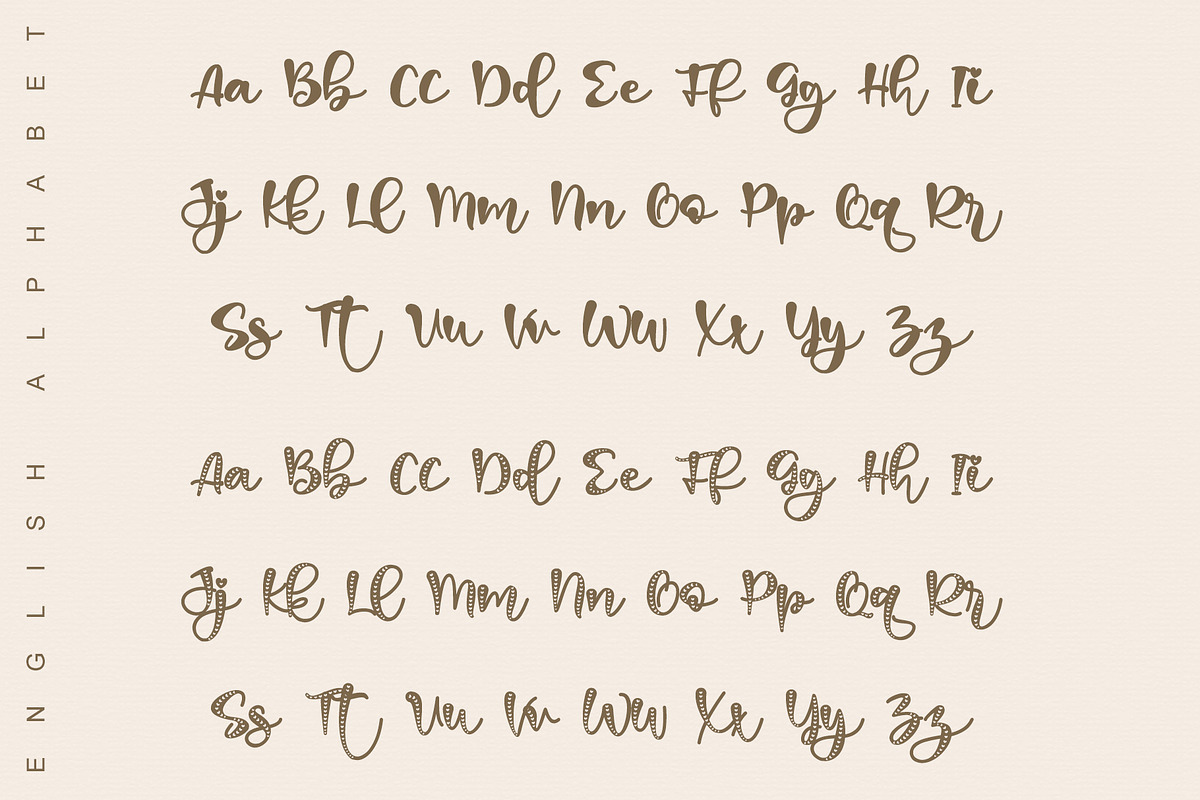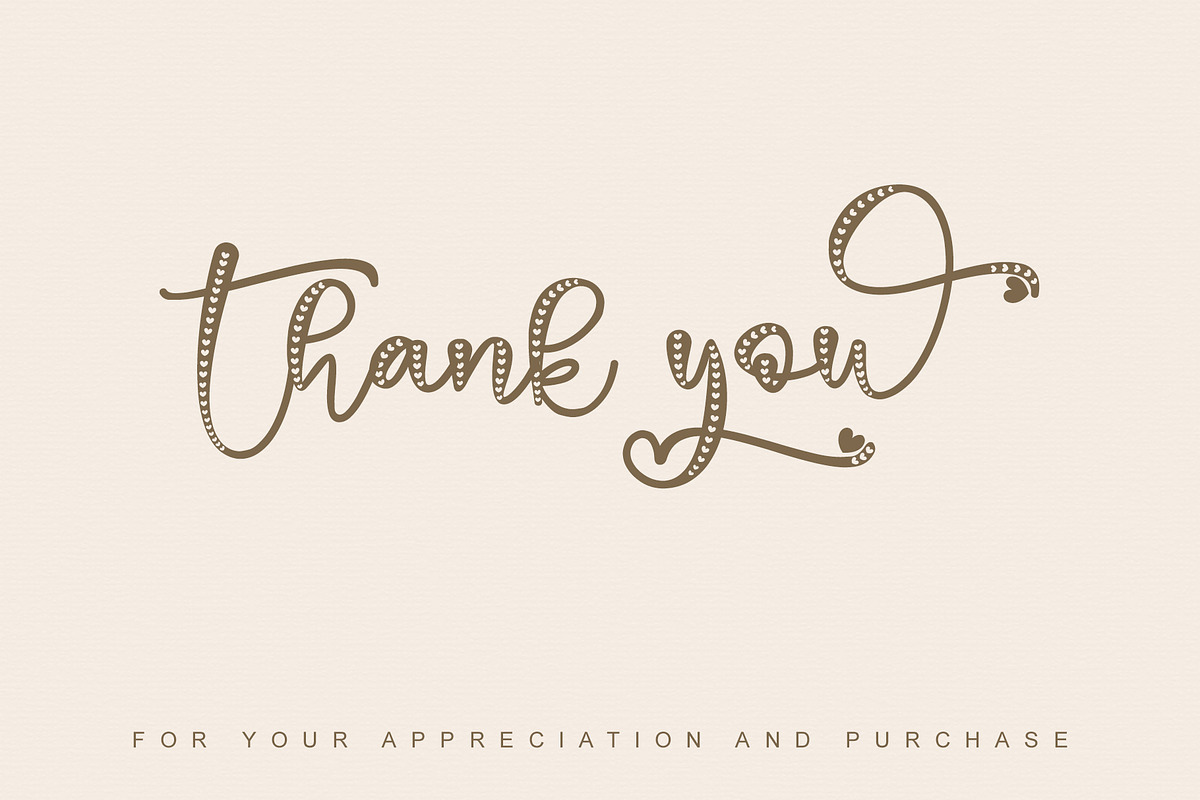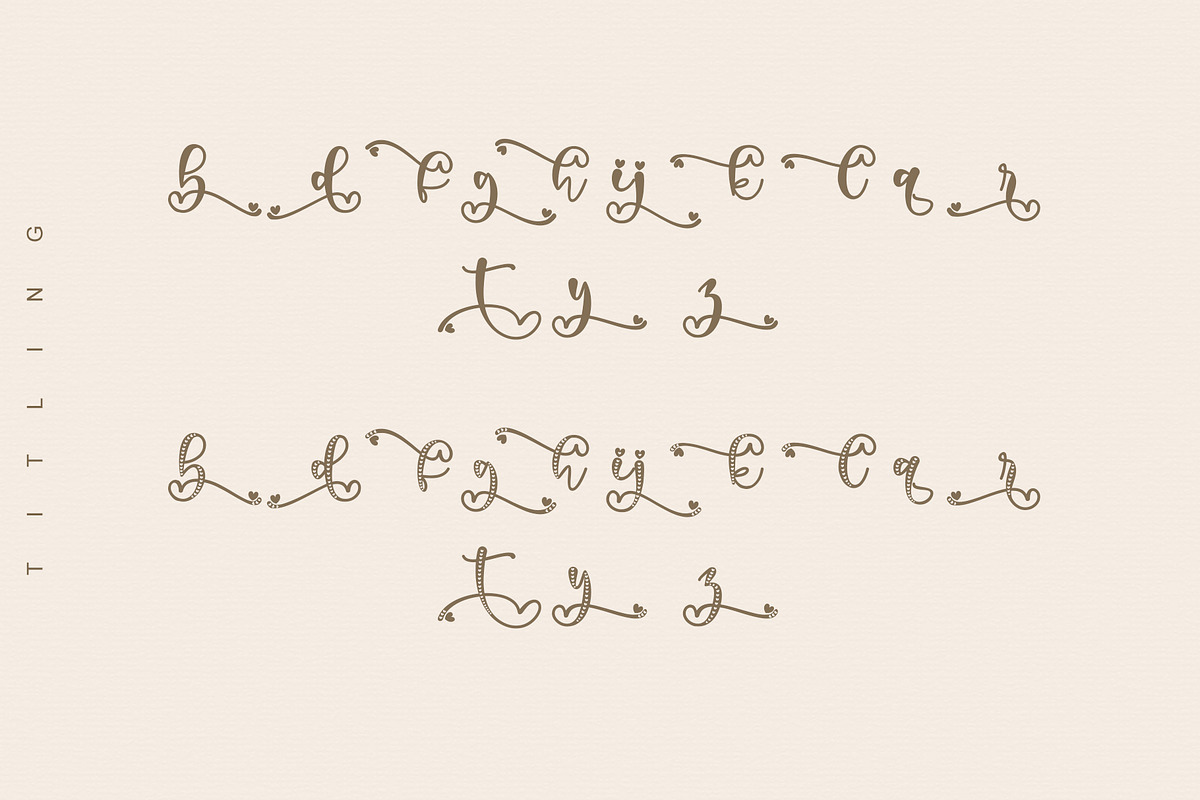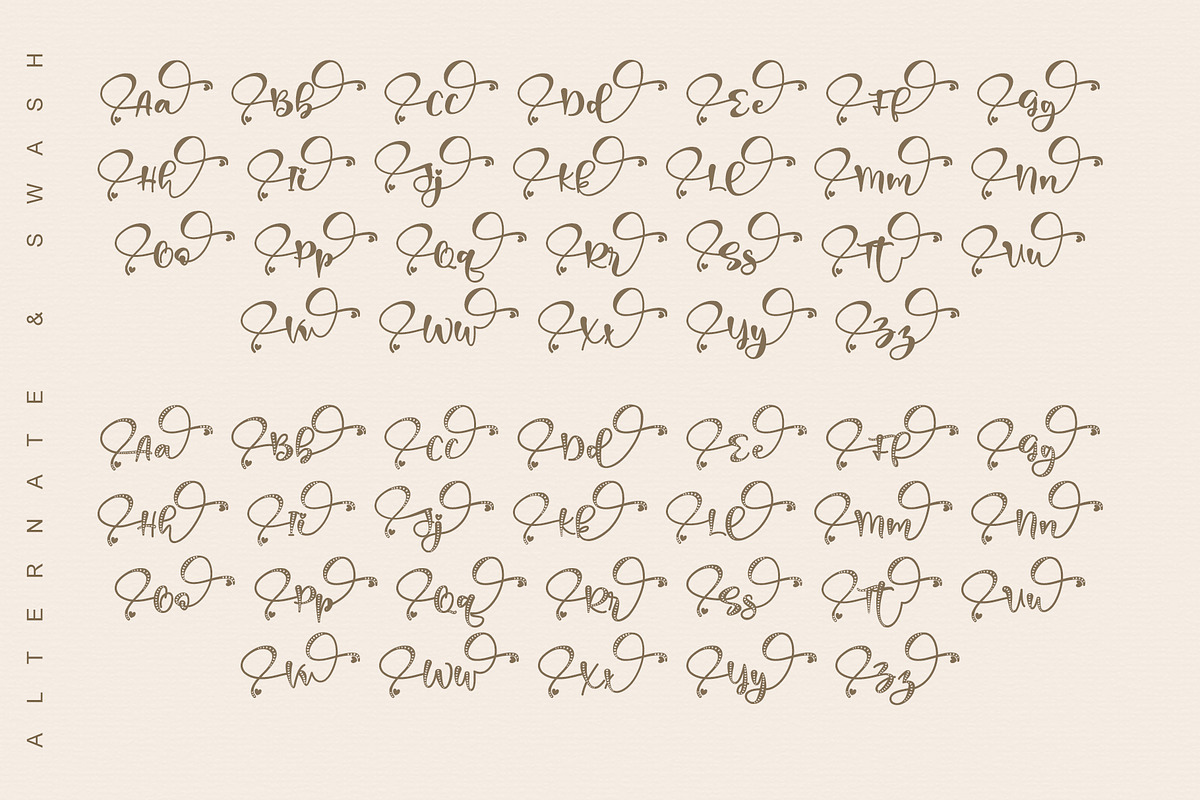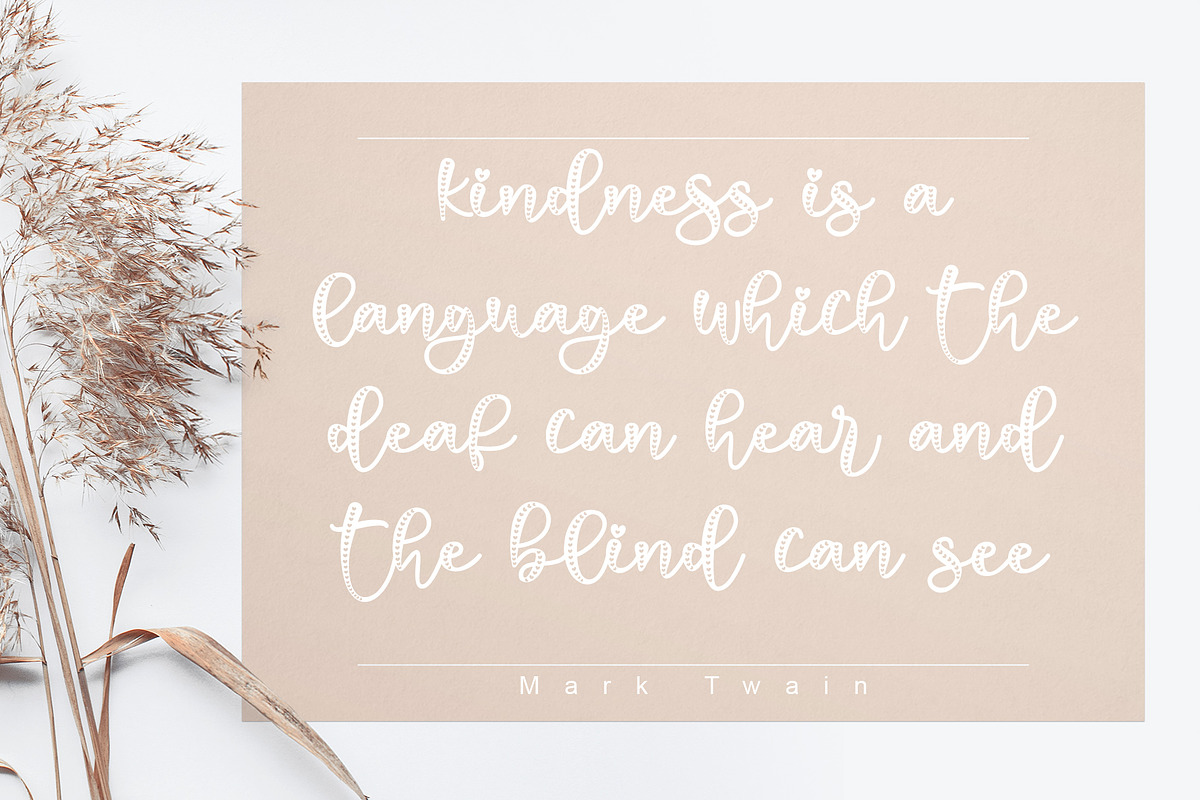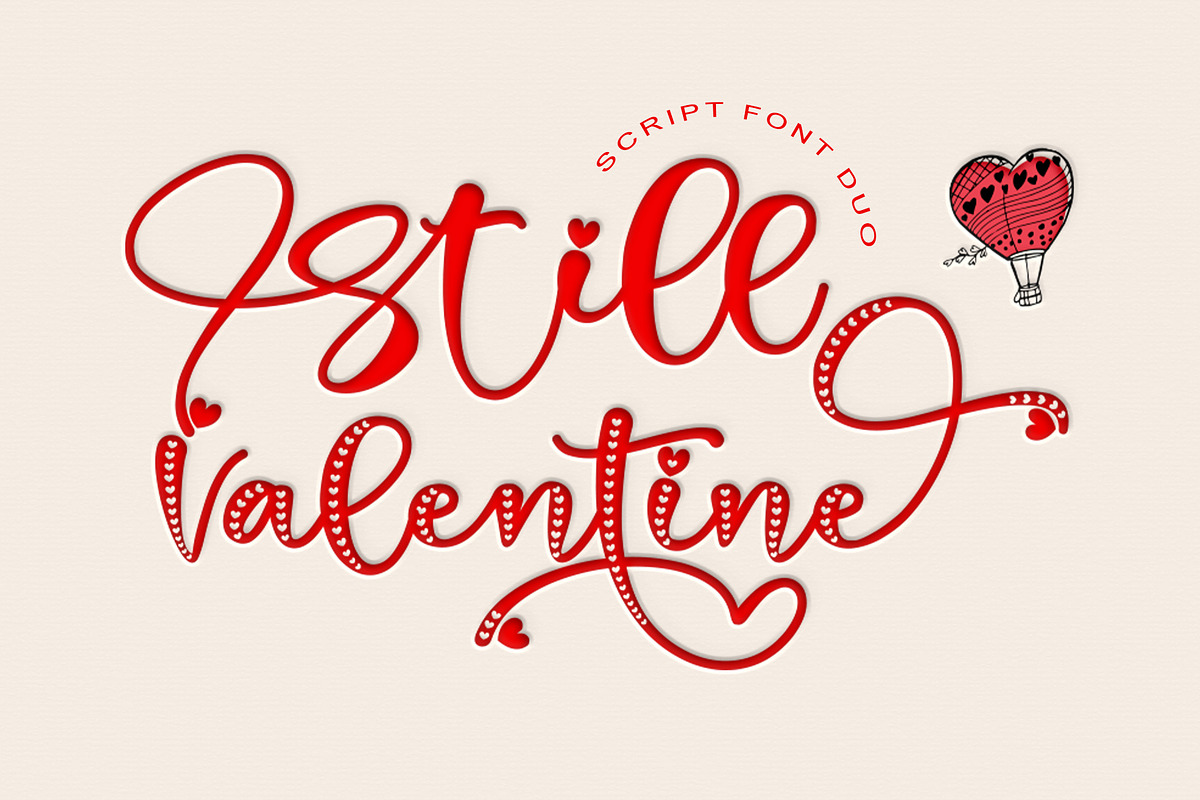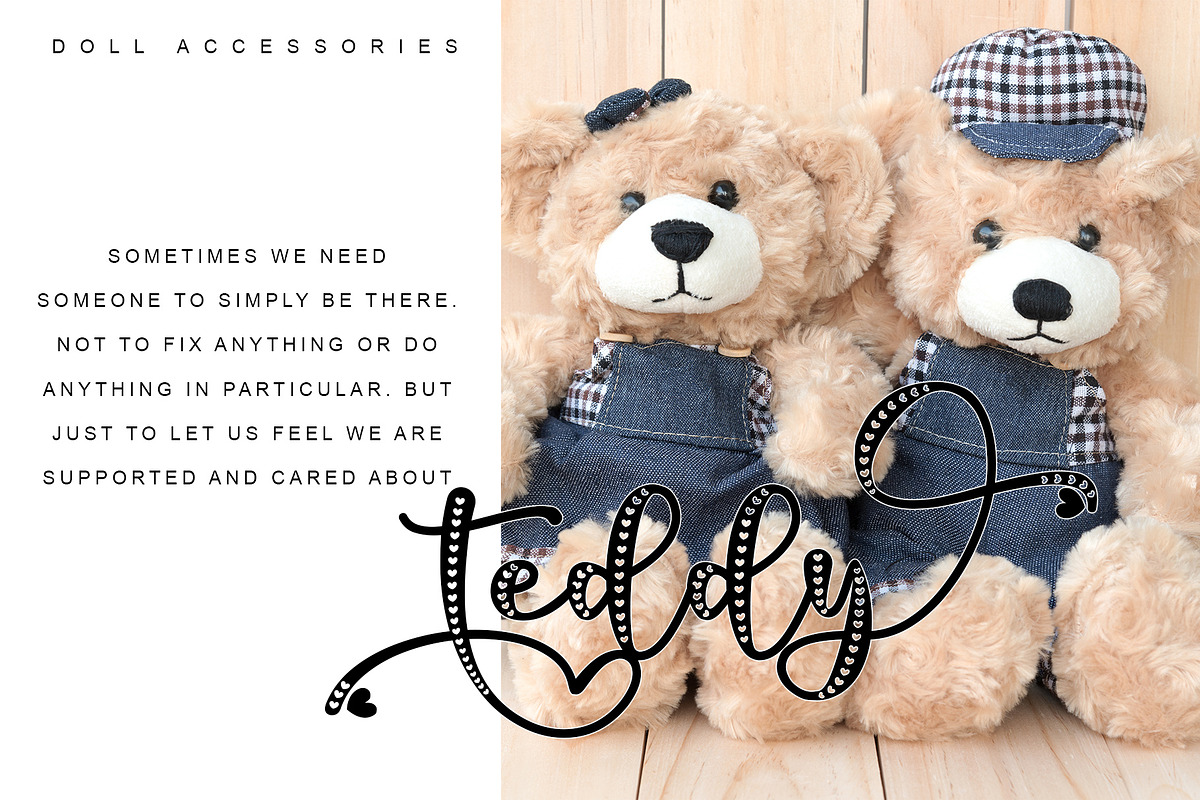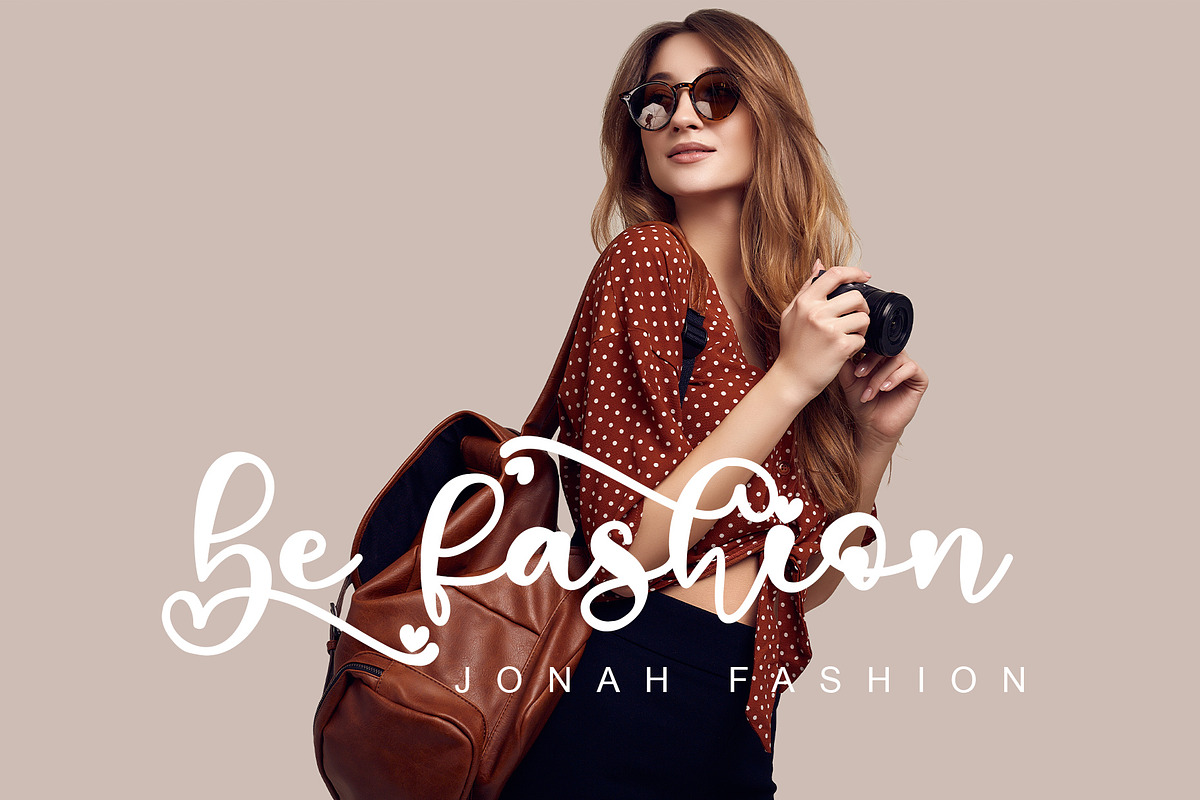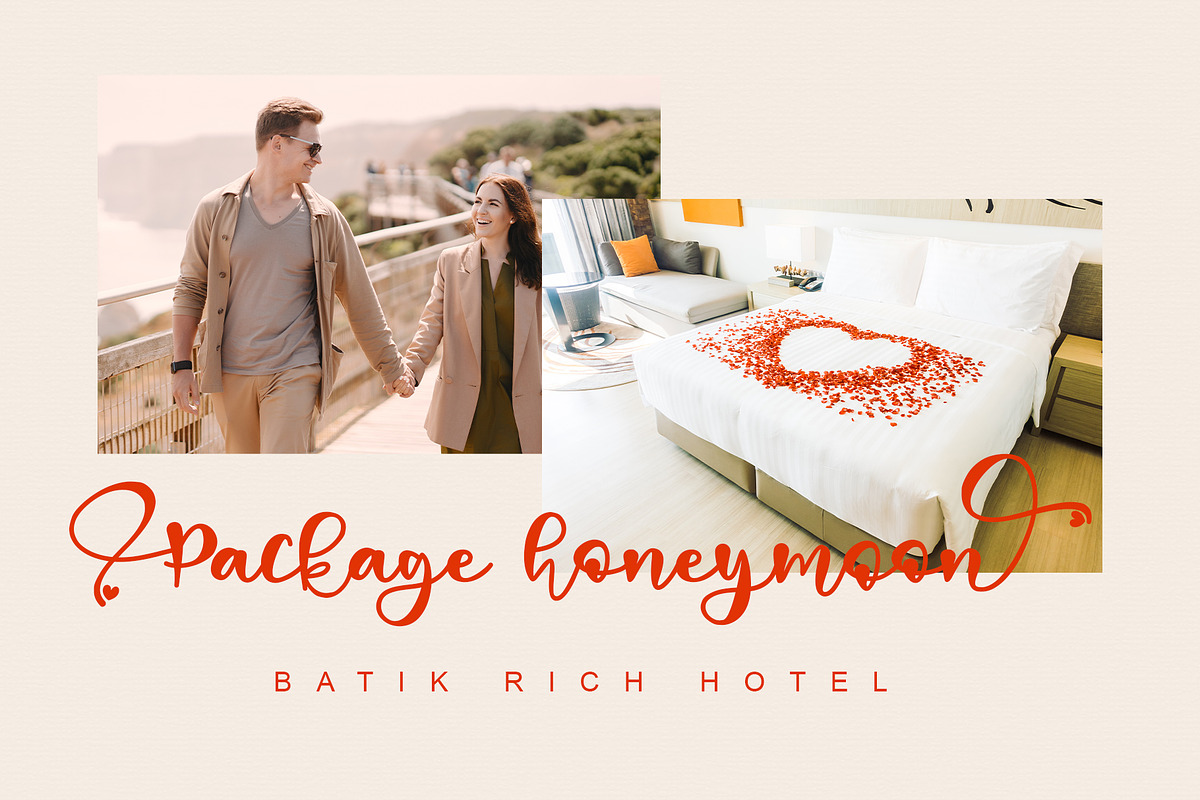
Still Valentine
Still Valentine is a lovely romantic handwritten font with lots of authenticities!. It has beautiful and well-balanced characters and as a result, it matches a wide pool of designs. It will turn any design project into a true stand-out. Add it to your most creative ideas and notice how it makes them come alive! This font is PUA encoded which means you can access all of the amazing glyphs and swashes with ease! It also features a wealth of special features including alternate glyphs and ligatures.
- Support multilingual; ä ö ü Ä Ö Ü ß ¿ ¡
- lowercase and uppercase letters
- Alternate, Swash, Titling & ligature